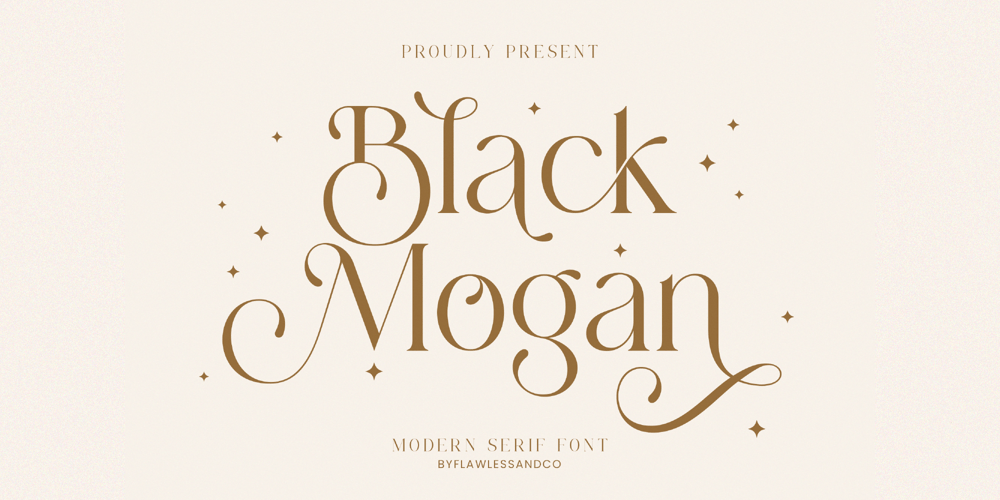
Mogan Font Family was designed by Achmad Yani and published by Flawlessandco. Mogan contains 1 styles and family package options. Mogan is a modern serif, with some alternates and ligatures that are perfect for branding materials, t-shirt, logo, poster, photography, quotes, and many more.An Original typeface that suitable for any graphic designs such as branding materials, t-shirt, print, business cards, logo, poster, t-shirt, photography, quotes .etcThis font support for some multilingual. Modern Sweet Retro that contains uppercase A-Z and lowercase a-z, alternate character, numbers 0-9, and some punctuation.If you need help, just write me! Thanks so much for checking out my shop